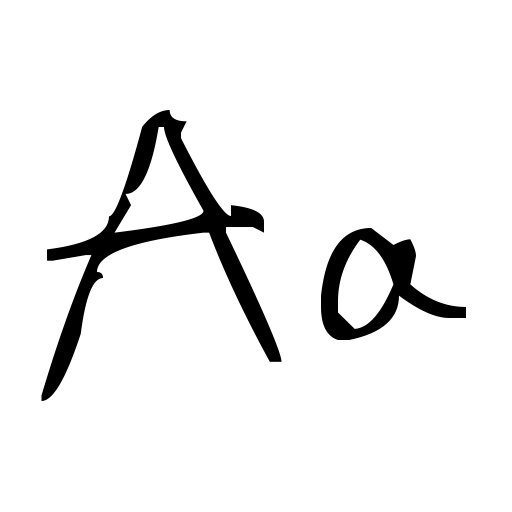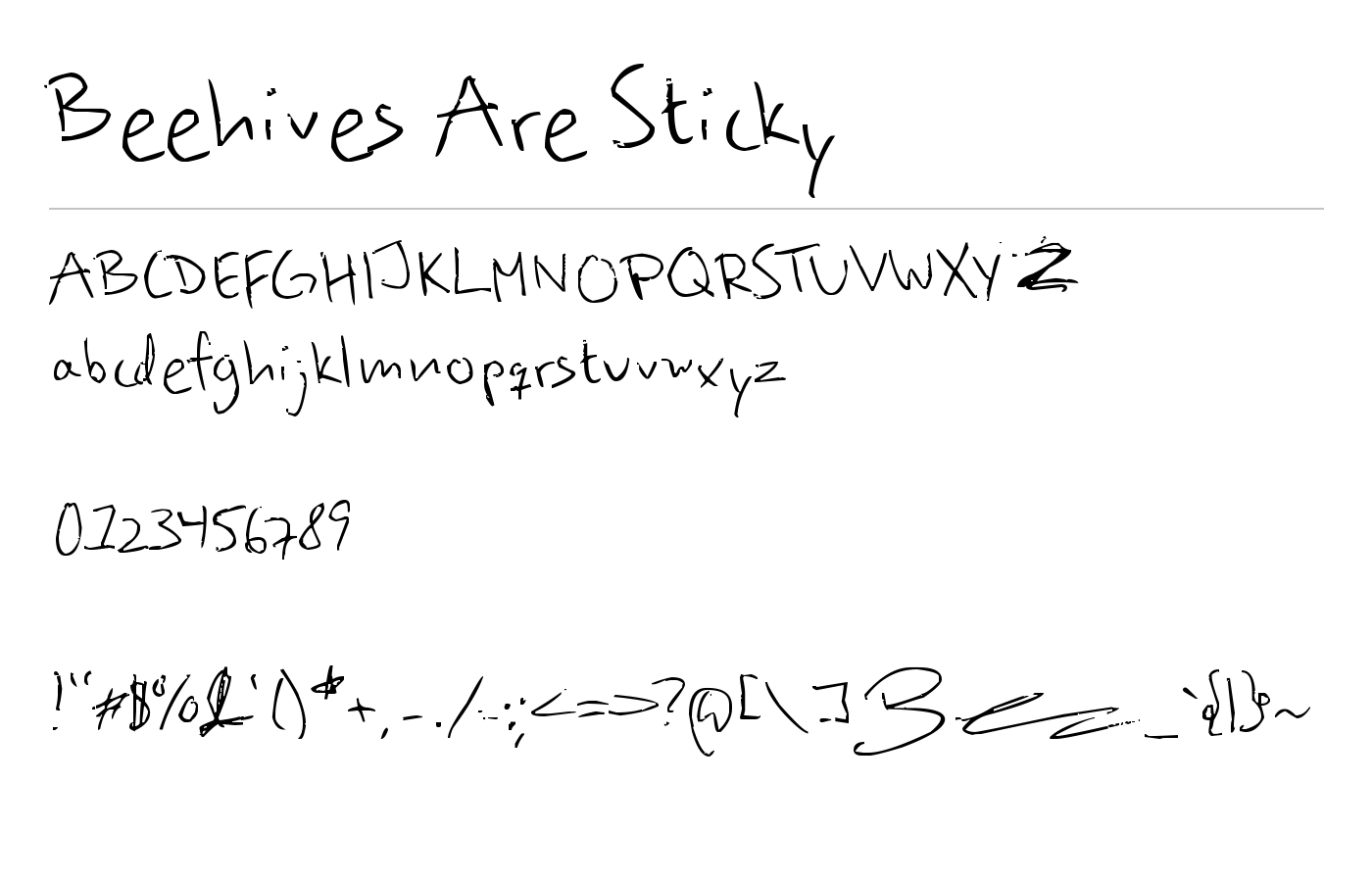
Beehives Are Sticky is a quirky, hand-drawn sans serif font that captures a casual and playful spirit with its irregular, slightly uneven strokes and loose letterforms. The font’s light weight and narrow width combined with its whimsical style make it perfect for creative projects that want to feel personal and approachable, such as informal invitations, playful branding, or unique headlines. Its imperfect, organic look gives it a charming, friendly vibe that works well whenever a relaxed and human touch is desired.
Beehives Are Sticky Font
About Beehives Are Sticky Font